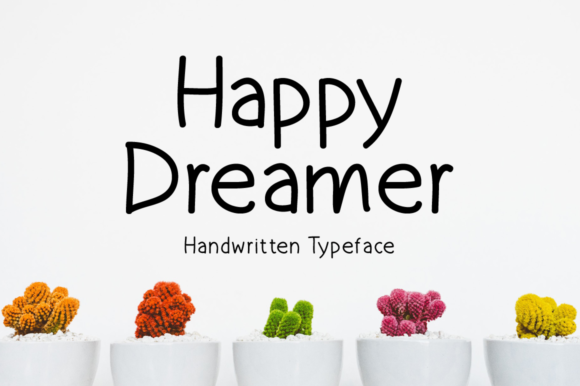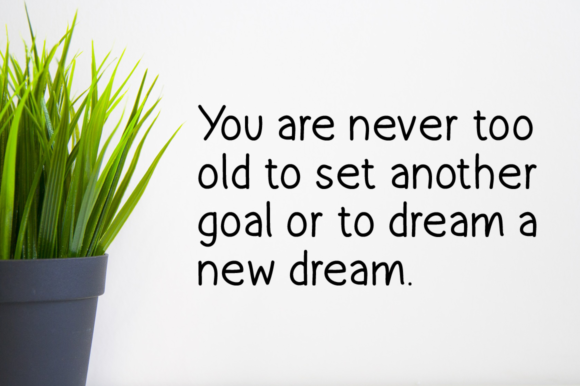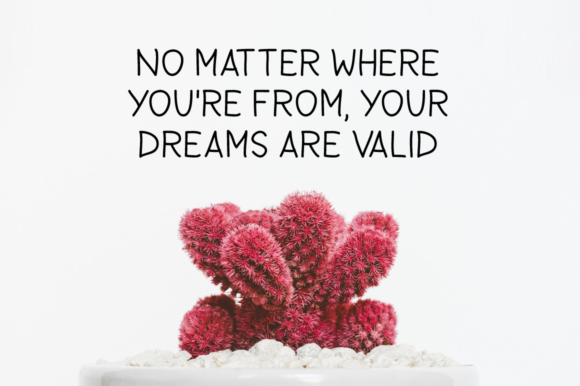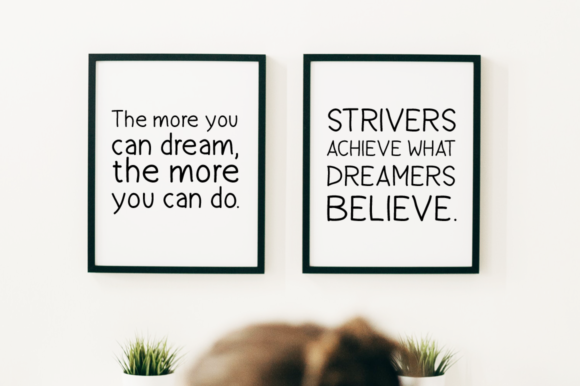
Happy Dreamer Font
About Happy Dreamer Font
Happy Dreamer is a simple handwritten font. Its natural and unique style makes it incredibly fitting to a large pool of designs. The only limit is your imagination!